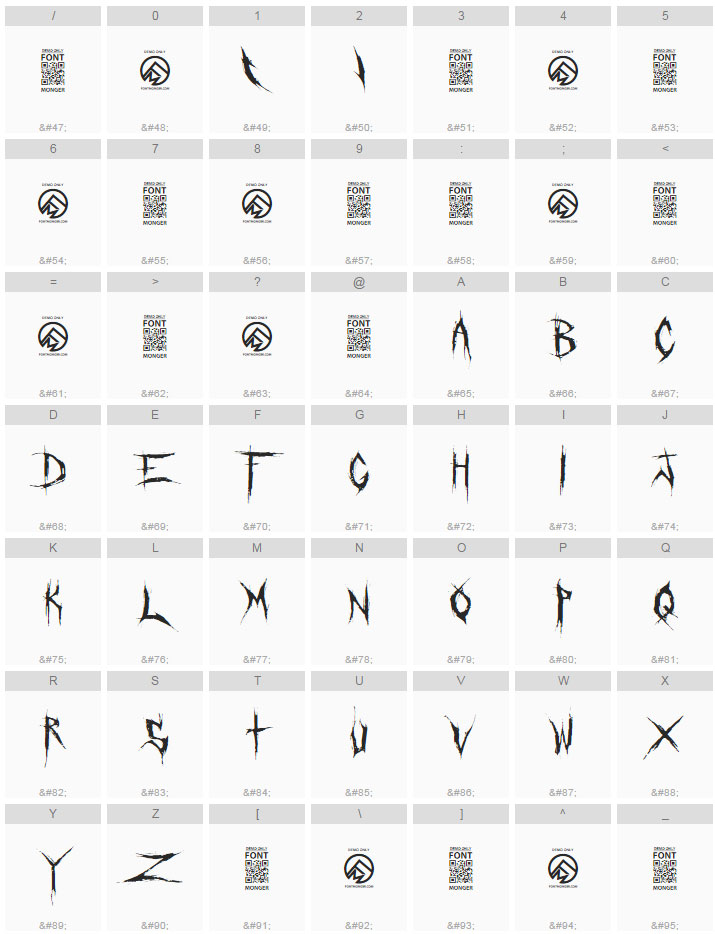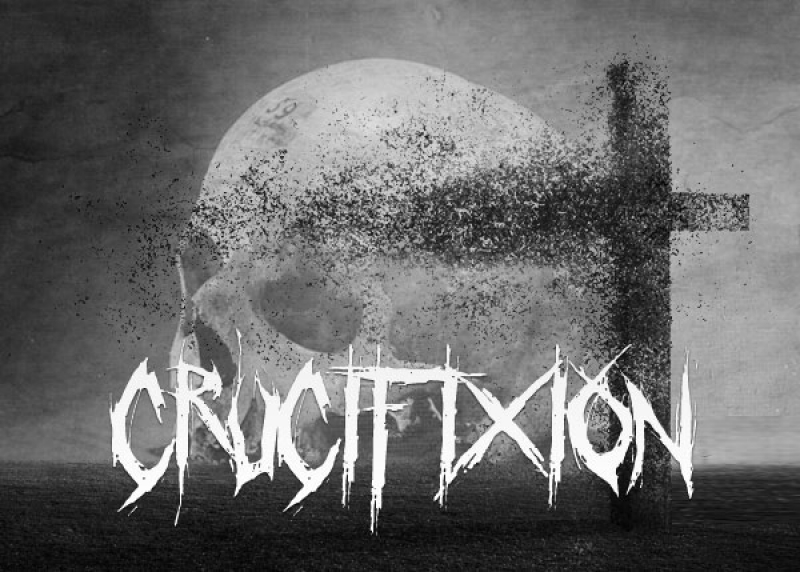
Crucifixion font is a remake of my first font I ever created of a different name. This new version of my older font has updated and new characters, improved sizing and kerning and a more appropriate name. This font was influenced by the grindcore and deathmetal genre of music and is suited for the same theme with projects, but this font will work well with any horror theme project too.